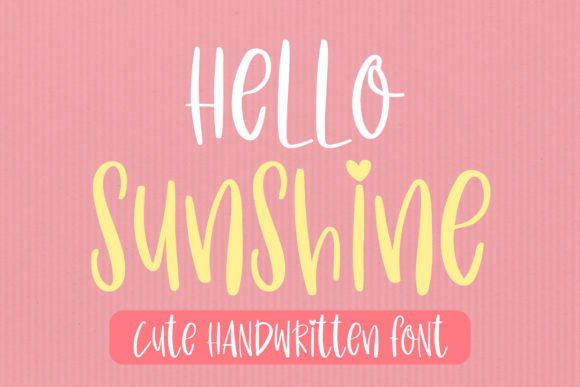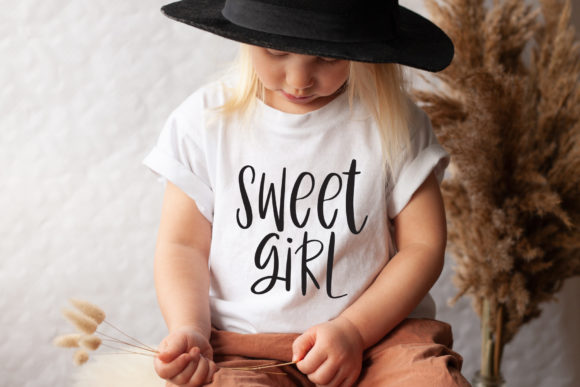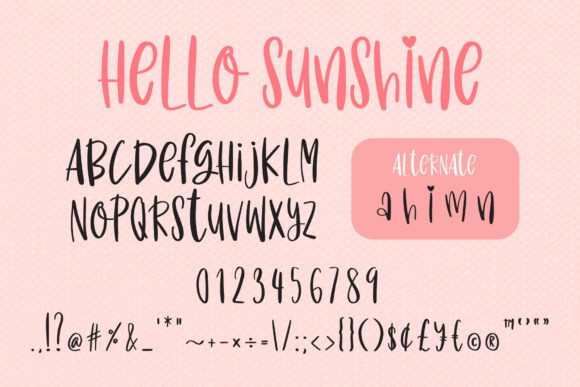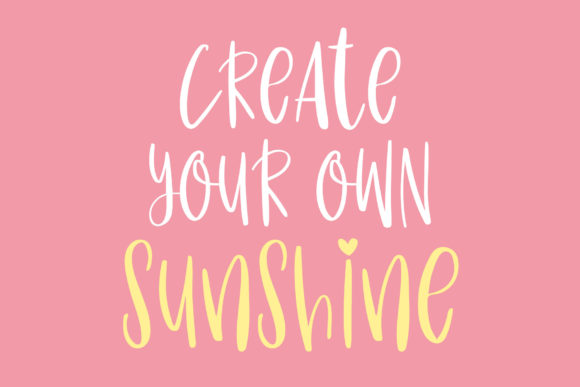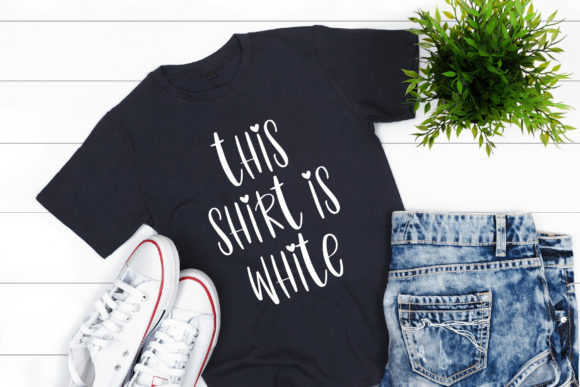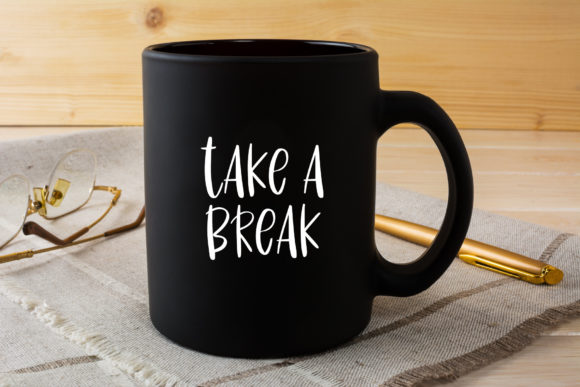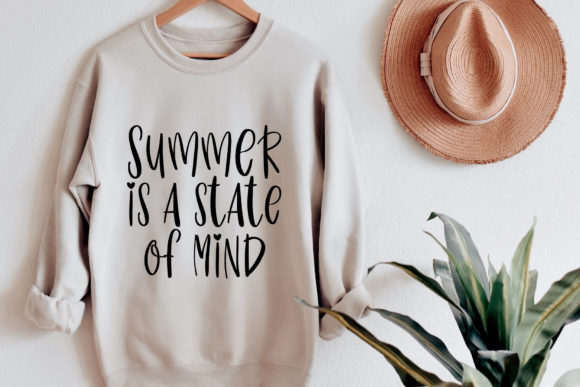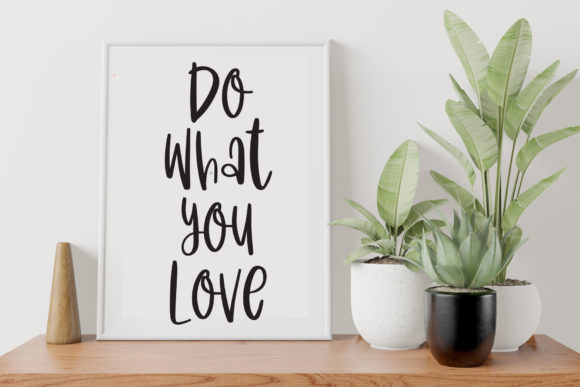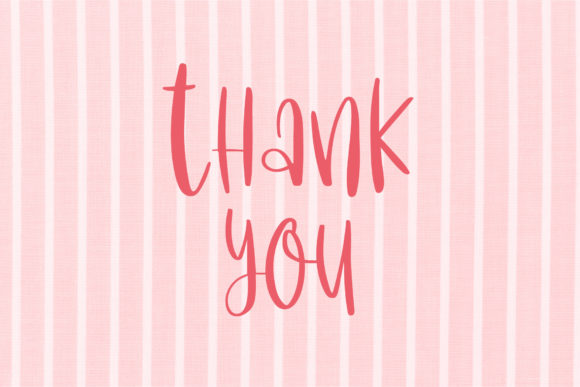
Hello Sunshine Font
About Hello Sunshine Font
Hello Sunshine is a cute, whimsical and relaxed handwritten font. Its sweet and full of life style makes this font a wonderful choice for brightening up your designs.